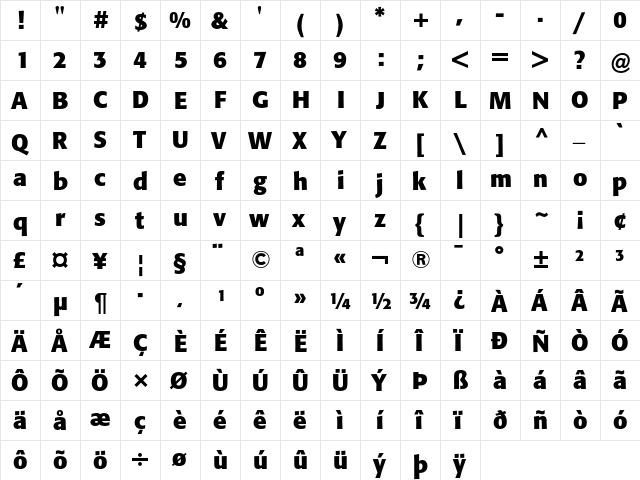
Formata Bold Font Preview
Formata Bold
Design Context for Formata Typeface
Formata is a composed and adaptable typeface that performs quietly and consistently across a wide range of design contexts. The heavy weight commands attention and anchors typographic hierarchies.